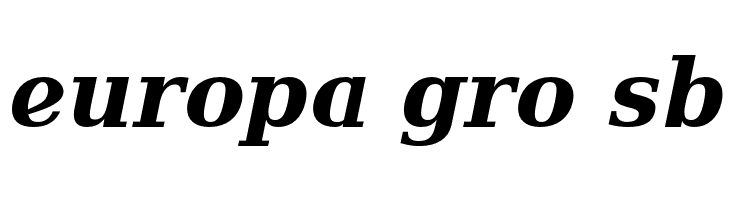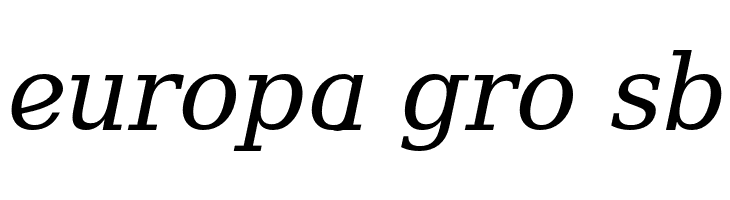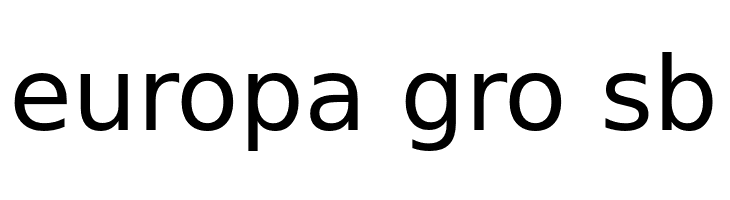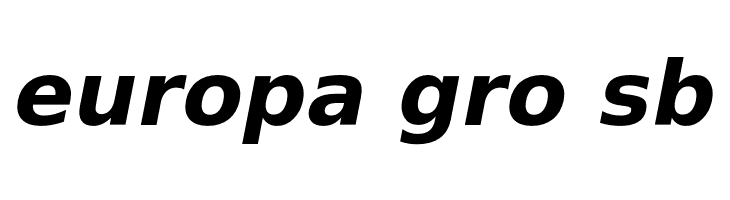
A bold and italicized font with strong, consistent strokes and a dynamic slant.
A classic serif font with sharp lines and a balanced structure.
A bold serif font with strong, thick strokes and classic elegance.
An elegant serif font with an italic slant and moderate stroke contrast.
A modern sans-serif font with clean lines and excellent readability.
A bold, oblique sans-serif font with a modern and dynamic style.
A modern, oblique sans-serif font with clean lines and a dynamic slant.
A modern, oblique sans-serif font with balanced proportions and clean lines.
A modern, clean sans-serif typeface with balanced proportions and uniform stroke width.
A modern, oblique sans-serif font with clean lines and a dynamic appearance.